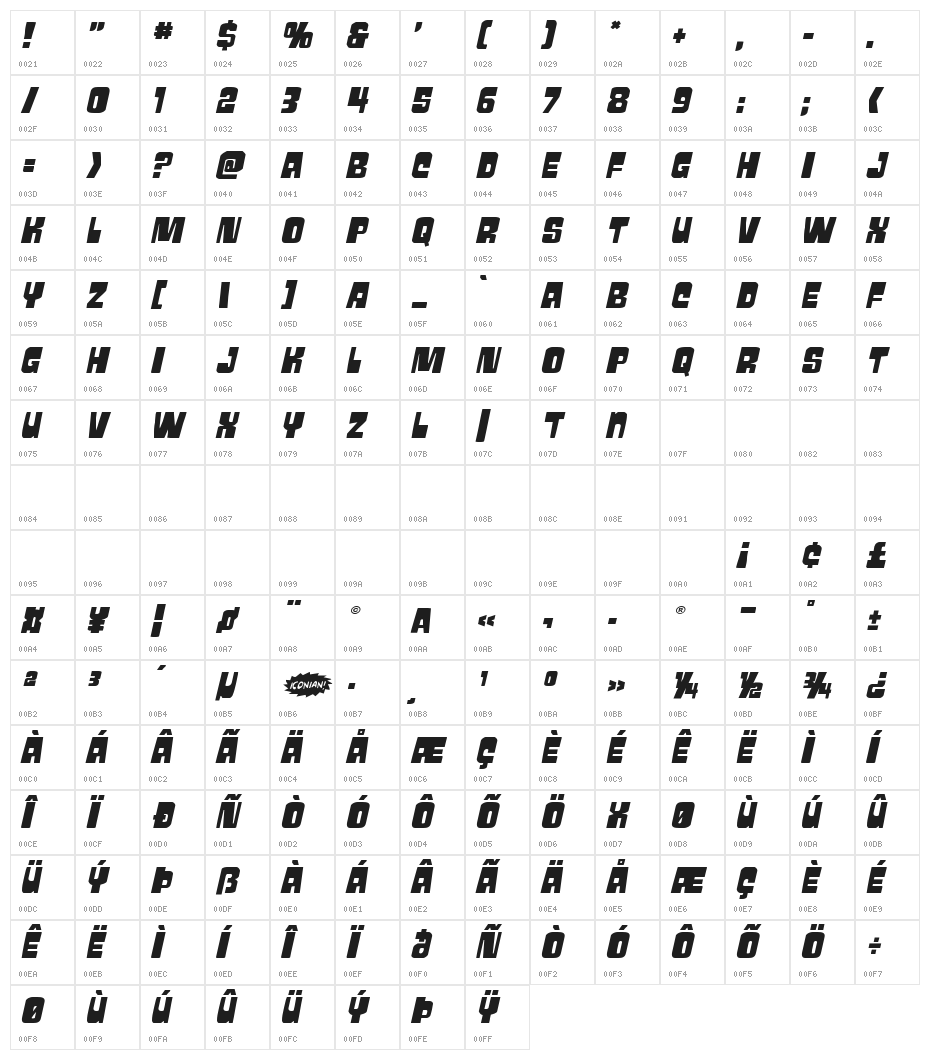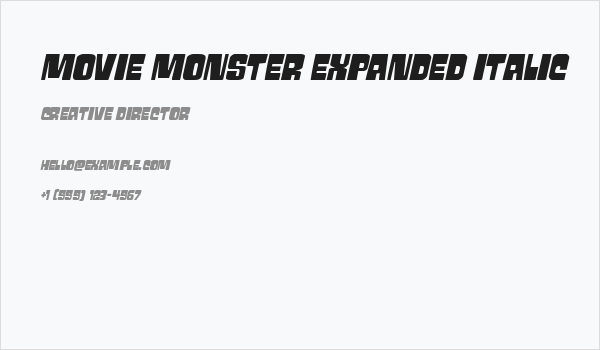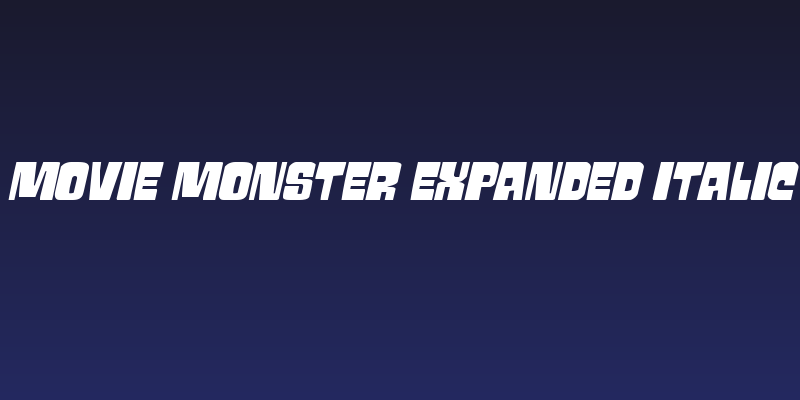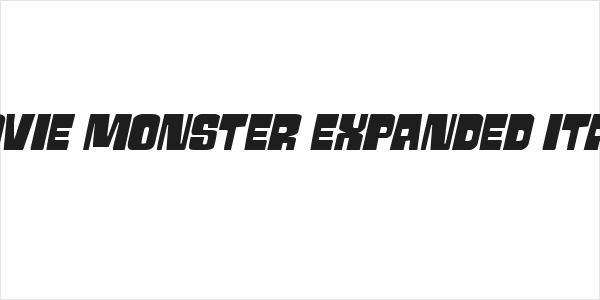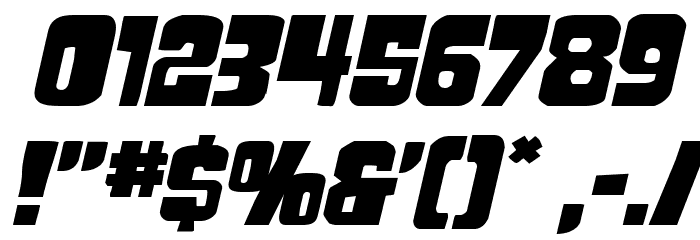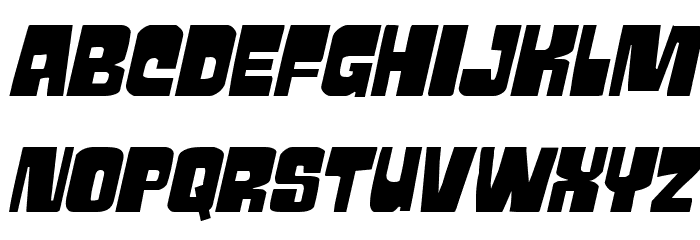
Movie Monster Expanded Italic Font
This font features a bold and dynamic style with a distinctly expanded and italicized form. The characters are robust and impactful, making them ideal for attention-grabbing designs. The uppercase letters are particularly prominent, with a strong presence that conveys a sense of power and movement. The numbers and special characters maintain the same boldness, ensuring consistency across all text elements. The italic slant adds a sense of urgency and speed, enhancing its suitability for dynamic and energetic themes.
| Proposed Projects | Perfect for movie posters, sports branding, video game titles, and any project requiring a strong, energetic typeface. |